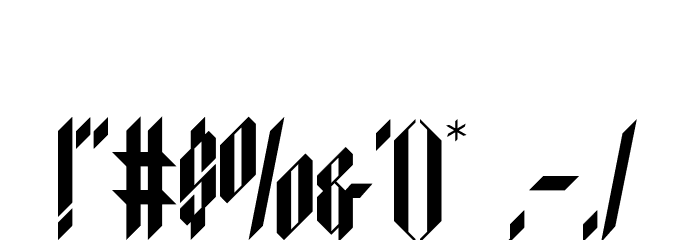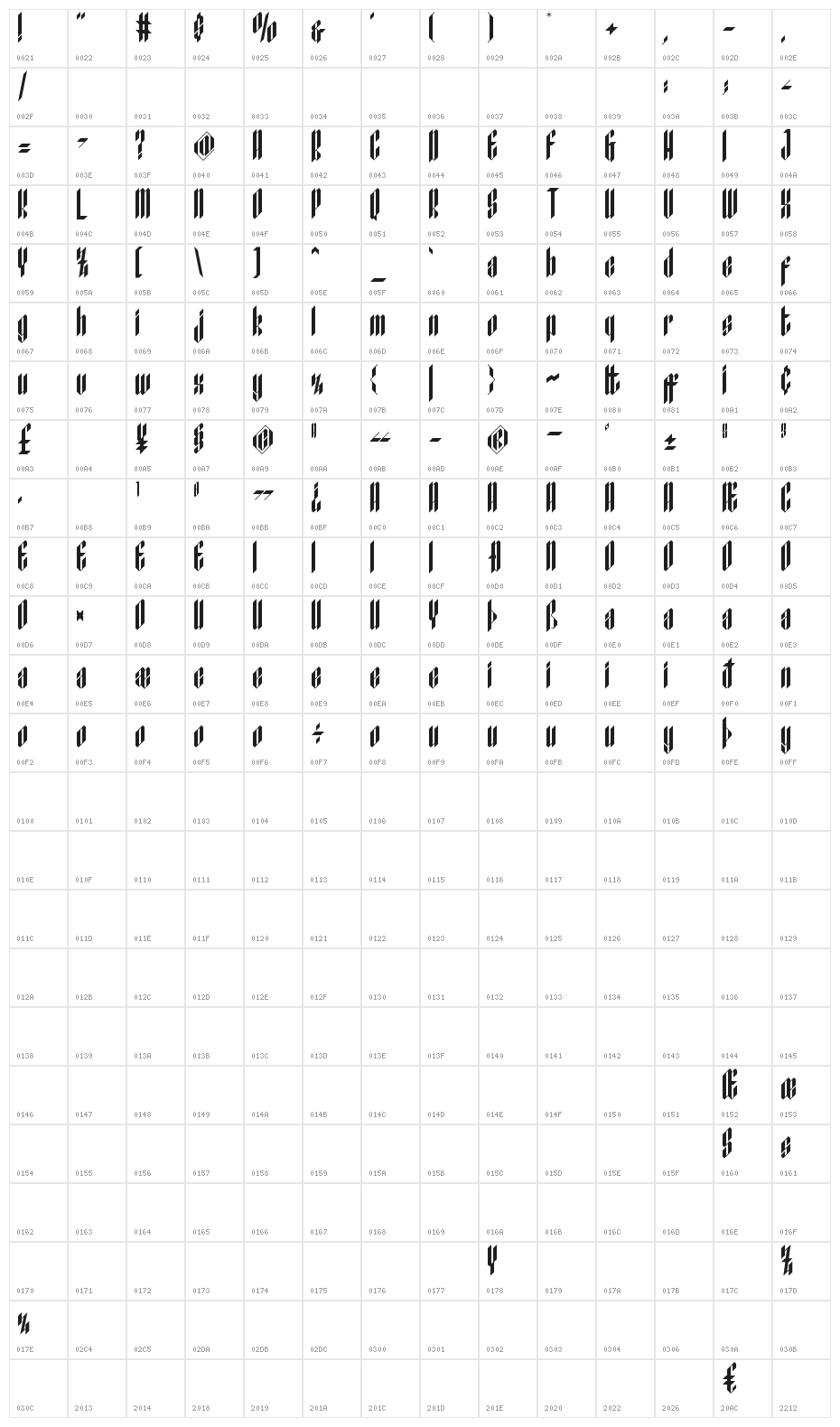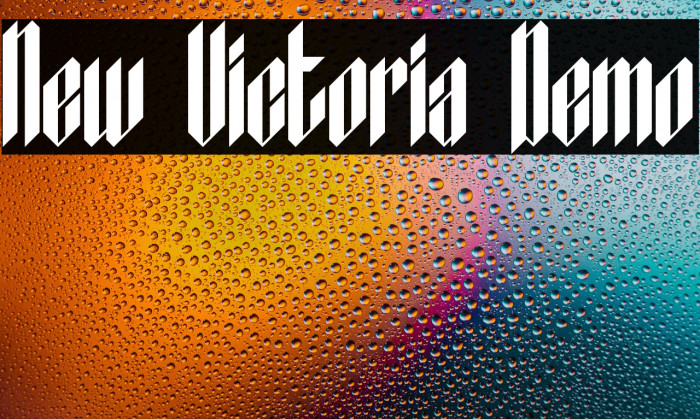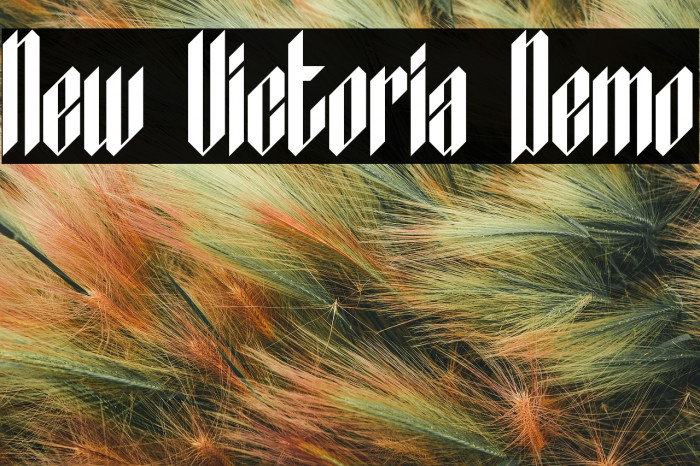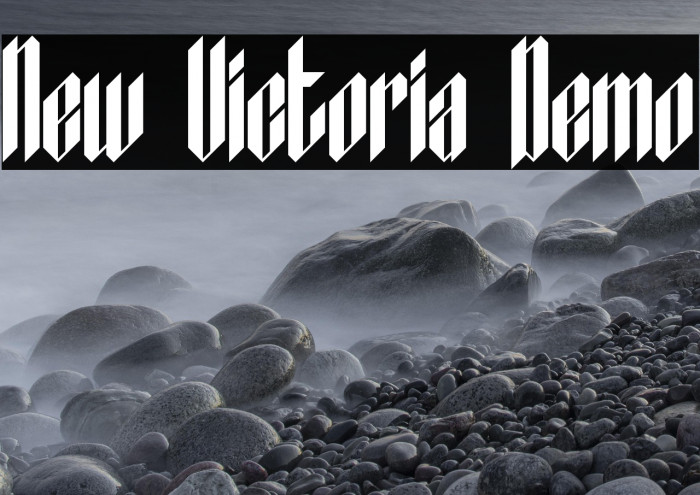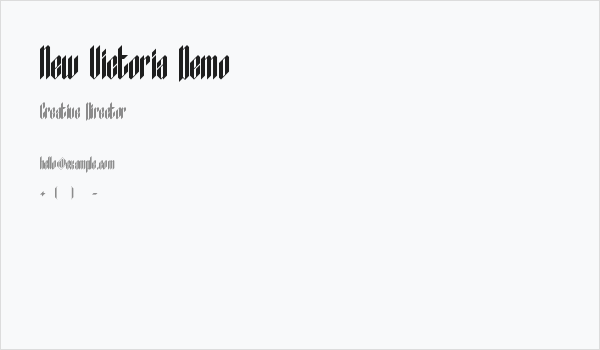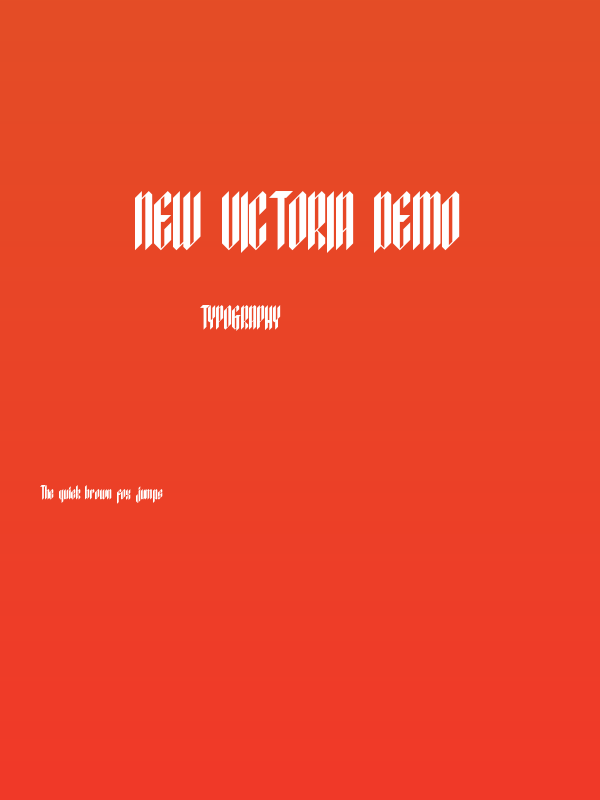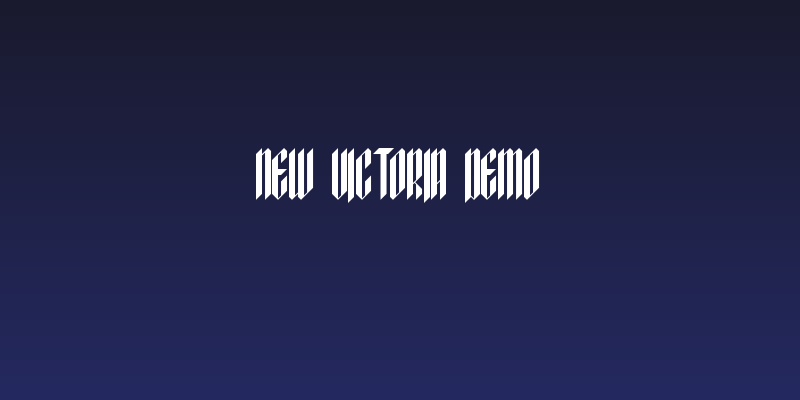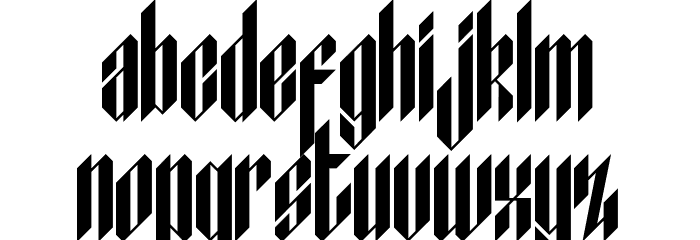
New Victoria Demo Font
New Victoria Demo Description
This font exhibits a bold and striking blackletter style, characterized by its sharp, angular lines and dramatic presence. The uppercase and lowercase letters maintain a consistent vertical emphasis, with intricate detailing that evokes a sense of historical elegance. The numerals and special characters are designed to complement the overall aesthetic, featuring similar angular and bold strokes. This font's unique style is reminiscent of traditional Gothic scripts, yet it incorporates modern elements that make it suitable for contemporary design projects.
| Proposed Projects | Ideal for use in branding, poster design, album covers, and any project seeking a dramatic, historical touch. |